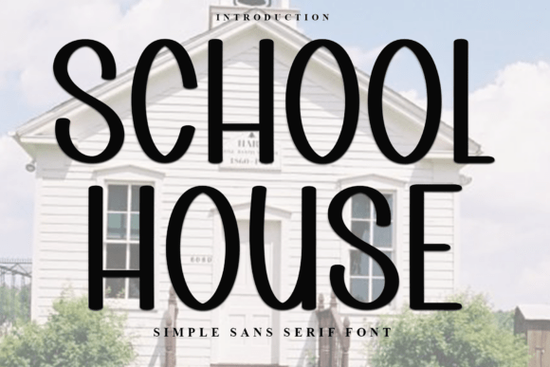
If you’re looking for a font that feels like holiday cheer wrapped in letterforms, the School House Font might be just what your seasonal projects need. It’s got that nostalgic, handcrafted vibe think candy canes, chalkboards, and cozy classroom windows during winter break. Whether you’re designing greeting cards, printable gift tags, or merch for your Etsy shop, this typeface adds warmth without being overly busy.
What makes it especially handy is that it’s PUA encoded. That means all those cute swashes, alternate characters, and ligatures? You don’t need special software or keyboard gymnastics to use them. Just open your design tool whether it’s Canva, Illustrator, or even Silhouette Studio and start typing. The extras are built right into the font menu.
Who should really consider using this font?
If you run a small business selling holiday-themed printables or physical products, School House works well because it stands out without screaming for attention. Crafters love it for vinyl decals, wood signs, and embroidery patterns. Teachers and homeschoolers have used it for festive classroom decor or year-end certificates. And if you’re just making personal cards for friends and family, it gives that “I put real thought into this” feeling.
It pairs nicely with simpler sans-serifs if you need contrast try it alongside something clean like Laguna Tropic for a tropical-meets-traditional holiday mashup, or go bold with Temur Amorak if you’re layering text over photos or textured backgrounds.
How does it compare to other display fonts on Creative Fabrica?
Unlike graffiti-style fonts like Graffiti Impact, which lean urban and energetic, School House leans into nostalgia and charm. It’s not trying to be edgy it’s trying to feel like hot cocoa by the fireplace. And compared to something like Senior Teacher, which has a more formal script structure, School House is looser, friendlier, and full of personality.
That said, it’s still legible at smaller sizes, which matters if you’re printing tags or labels. The decorative elements don’t overwhelm the core shape of each letter. You won’t find yourself squinting at a gift tag wondering if that’s an “S” or a snowflake.
What kinds of projects does it work best for?
- Holiday cards both digital and printable. Add a little holly sprig glyph between names for extra flair.
- Teacher gifts or classroom decor end-of-year awards, door signs, or bulletin board headers.
- Small business branding seasonal logos, social media banners, or product packaging for holiday collections.
- DIY crafts iron-on transfers, painted wood signs, or stitched ornaments.
One user even told us they used it to design custom cookie packaging for their holiday bake sale the font’s playful curves matched the homemade aesthetic perfectly.
Any tips for getting the most out of it?
Yes. First, play with the alternates. Most letters have at least one stylistic variation, so mixing them up keeps your text from looking too uniform. Second, don’t forget about kerning. Because some glyphs have extended tails or curls, you might want to nudge letters closer together for tighter compositions.
And third pair it with texture. This font shines when layered over kraft paper, watercolor washes, or soft fabric mockups. Avoid stark white backgrounds unless you’re going for a minimalist holiday look.
Is it worth buying if I already own other holiday fonts?
Depends. If your current collection is heavy on elegant scripts or modern sans-serifs, School House fills a gap. It’s not another “fancy calligraphy” font it’s got character, literally. The rounded terminals, uneven baseline, and occasional ink blots (yes, really) give it that human touch designers and customers respond to.
Pro tip: Download the full character map PDF that comes with the font. It shows every glyph, so you don’t miss hidden gems like the star dot over the “i” or the curly underline swash.